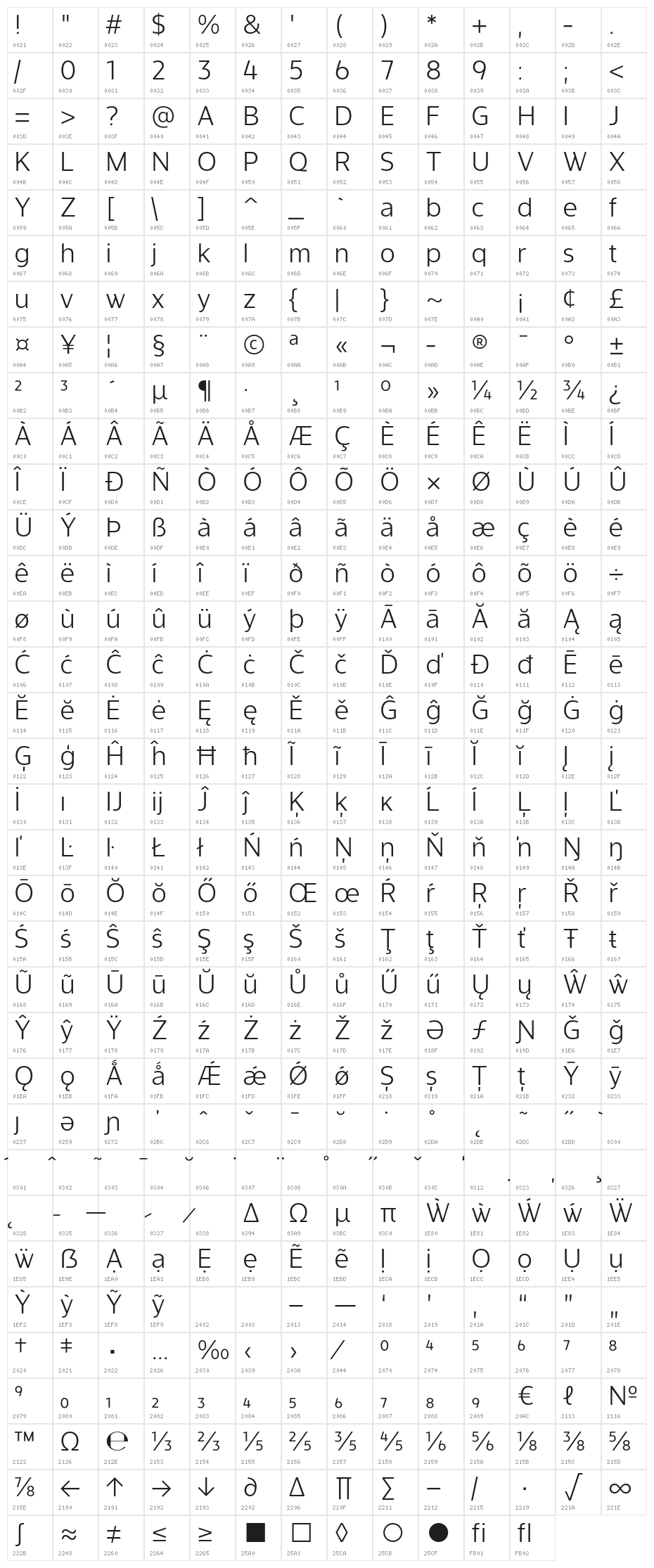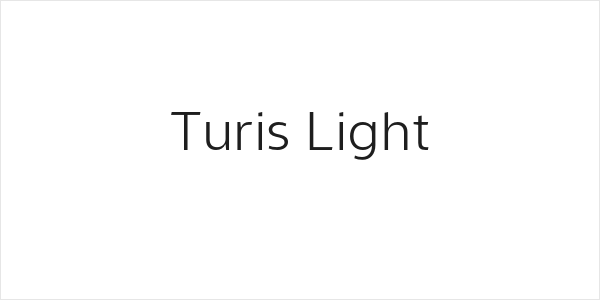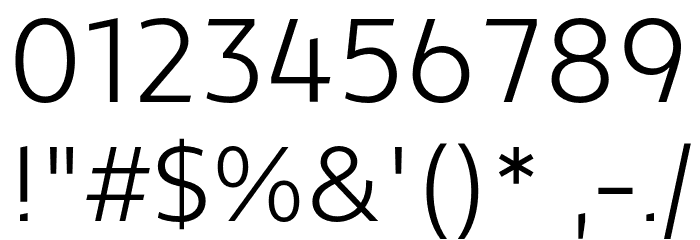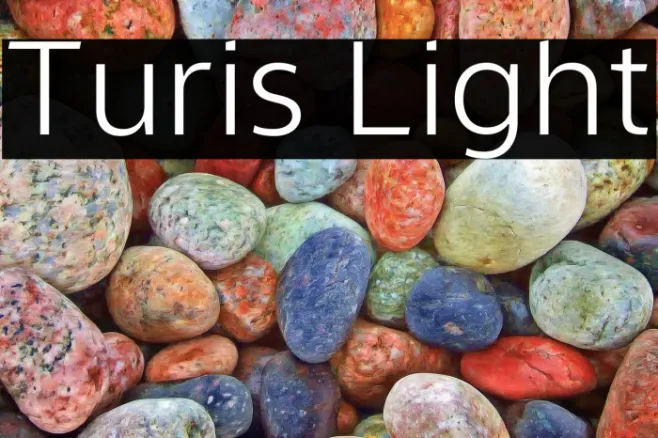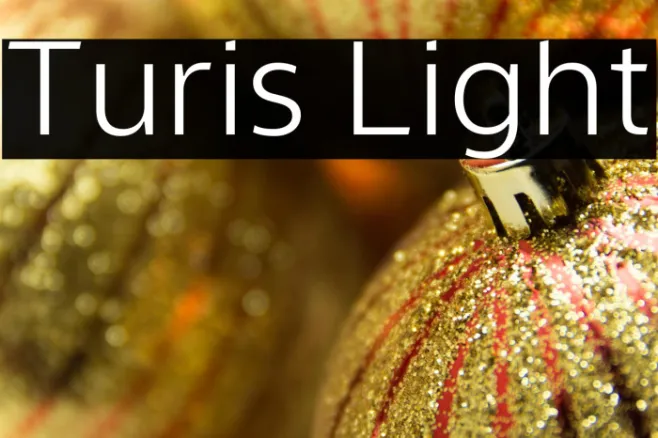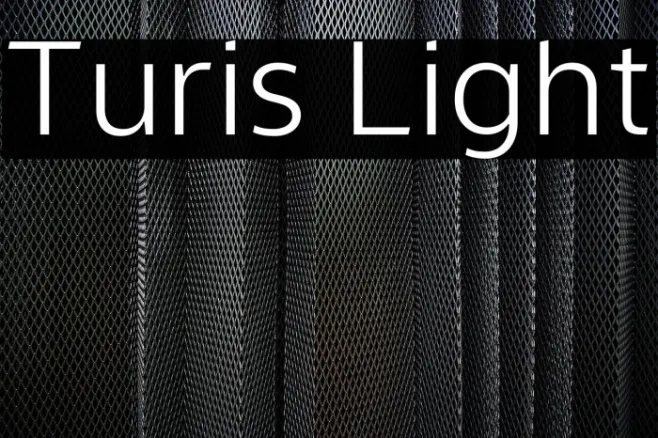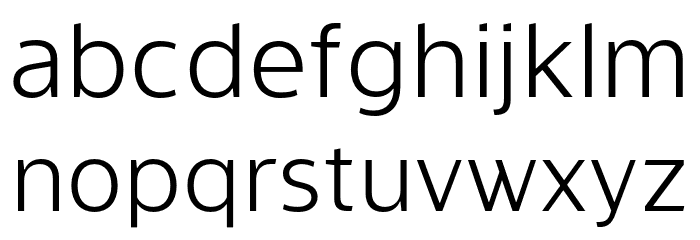
Turis Light Font
Turis Light Description
This font features a clean and modern sans-serif design, characterized by its sleek and minimalistic appearance. The letters are well-proportioned with a consistent stroke width, providing a harmonious and balanced look. The uppercase and lowercase letters maintain a uniform style, enhancing readability. The numerals are clear and distinct, making them suitable for various applications. Special characters are included, offering versatility for different contexts. Overall, the font's simplicity and elegance make it a versatile choice for both digital and print media.
| Proposed Projects | Ideal for branding, web design, corporate materials, and editorial layouts. |